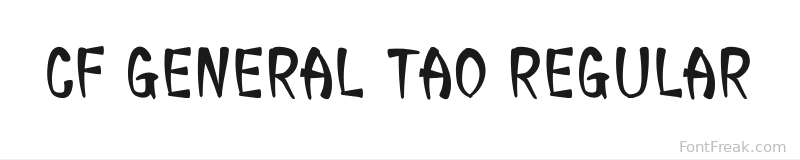
CF General Tao Regular
CF General Tao Regular, designed by Cloutierfontes, is a distinctive display font that exudes a playful yet modern charm. This font falls under the category of decorative typefaces, characterized by its unique letterforms and casual vibe. The strokes are slightly uneven, which adds an organic feel, while the weight is consistent, creating a balanced appearance throughout the characters. The spacing is generous, allowing for comfortable readability, making it suitable for various design applications.
This font is ideal for specific use cases, including restaurant menus, where its engaging style can enhance the dining experience. Its whimsical nature also makes it a great choice for children's books, where it can capture the imagination of young readers. Additionally, it works well on promotional materials such as flyers and posters, where a fun and inviting look is essential. Graphic designers and content creators will find CF General Tao Regular particularly useful for creating eye-catching visuals that need a touch of personality.
Small business owners looking to create a memorable brand identity will also appreciate this font's quirky charm. Whether used in logo design or on social media posts, it offers a unique way to stand out in a crowded market.
What truly sets CF General Tao Regular apart is its ability to combine a lighthearted aesthetic with versatility. This font can be easily adapted to various projects while still maintaining its signature appeal. With a license type of freeware, the CF General Tao Regular font free download makes it accessible for anyone looking to elevate their design work without financial constraints. Its distinctive style and practical applications ensure that it will remain a favorite among designers for years to come.